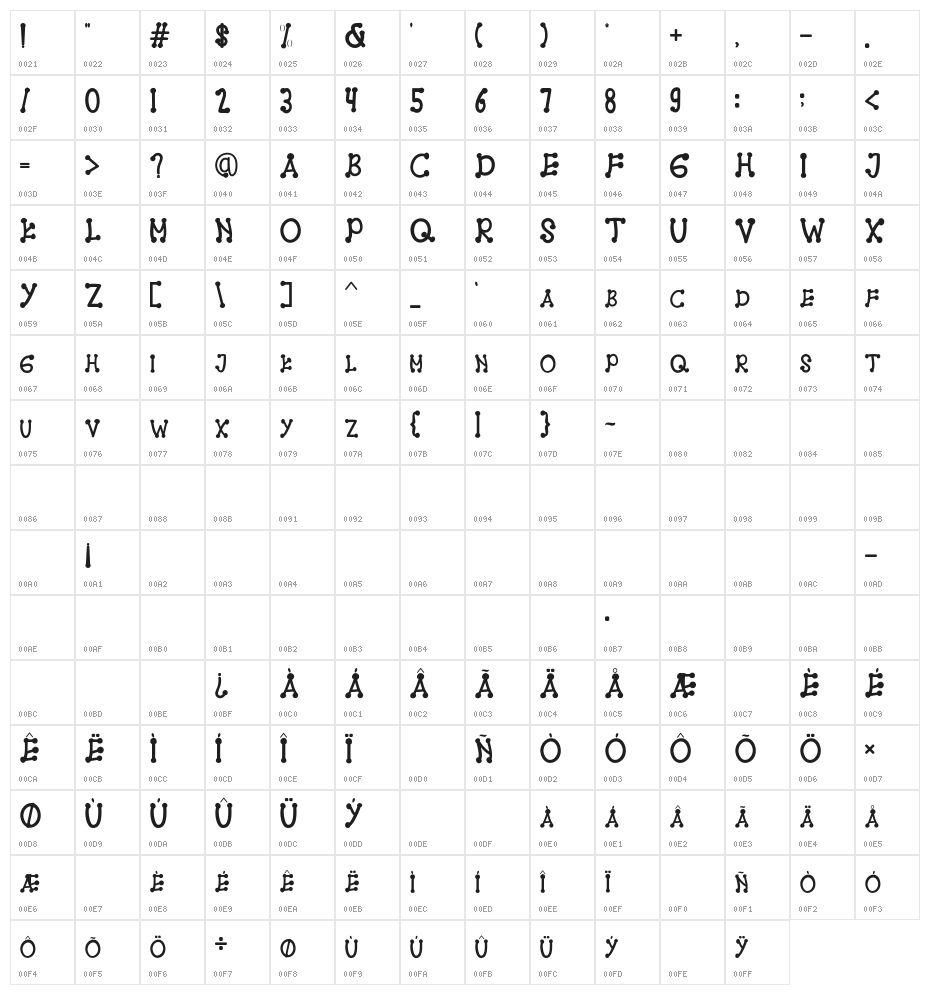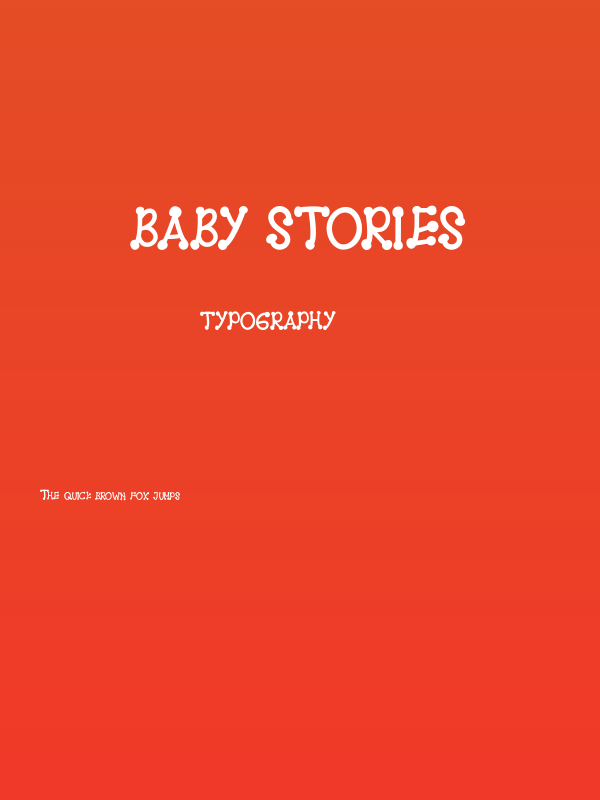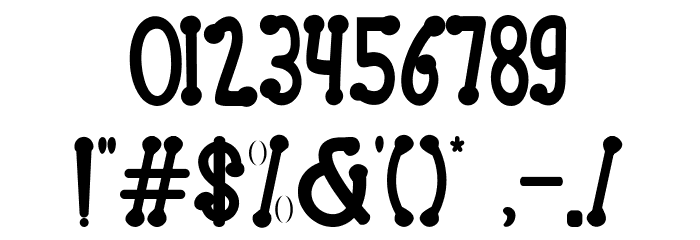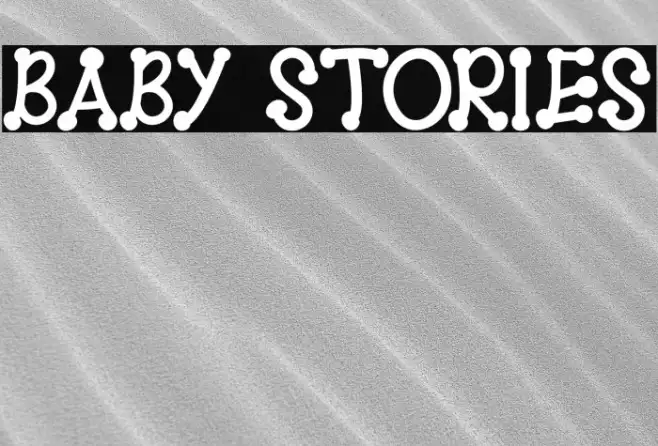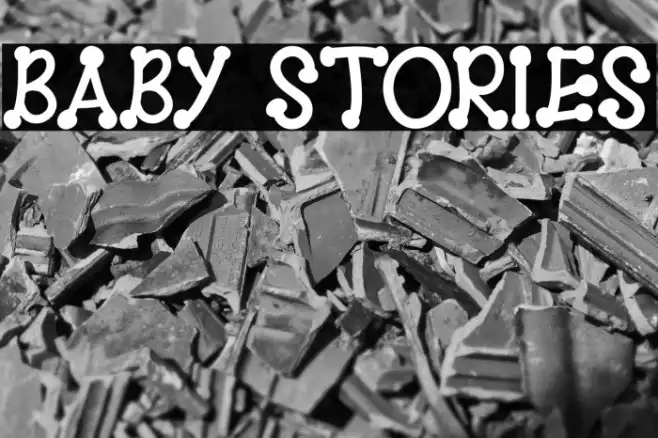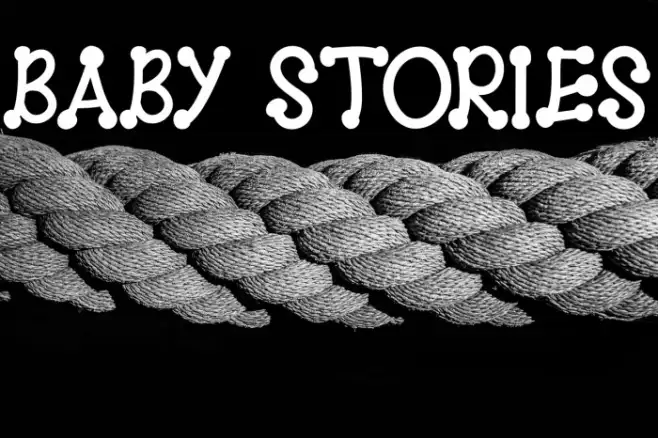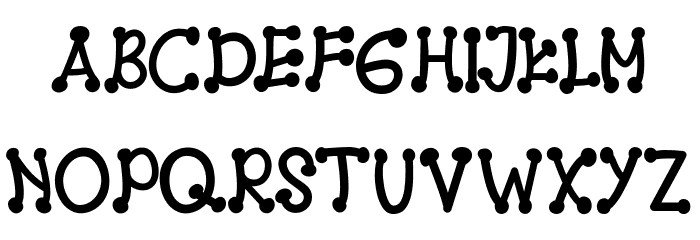
BABY STORIES Font
BABY STORIES Description
This playful and whimsical font features bold, rounded characters with unique dot-like embellishments at the ends of each stroke, creating a fun and engaging appearance. The letters are evenly spaced, maintaining a consistent flow throughout the text. The numbers and special characters follow the same design principles, ensuring a cohesive look. This font exudes a sense of joy and creativity, making it ideal for projects that aim to capture a youthful and lively spirit.
| Proposed Projects | Ideal for children's books, playful branding, party invitations, and educational materials. |